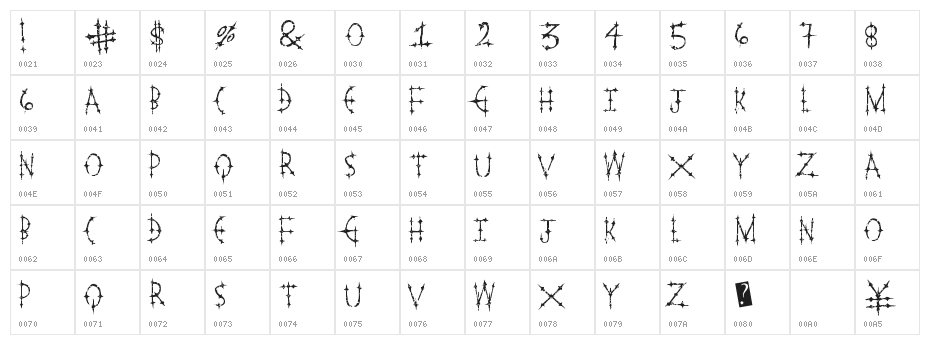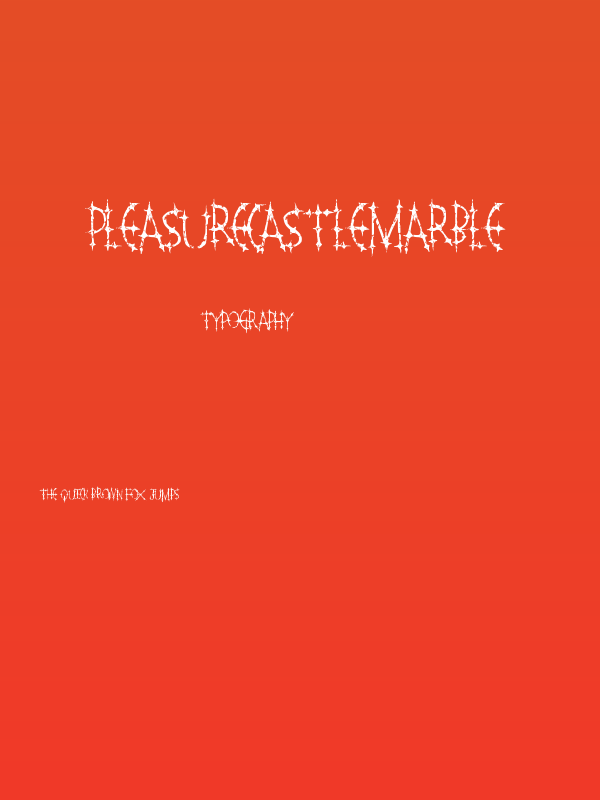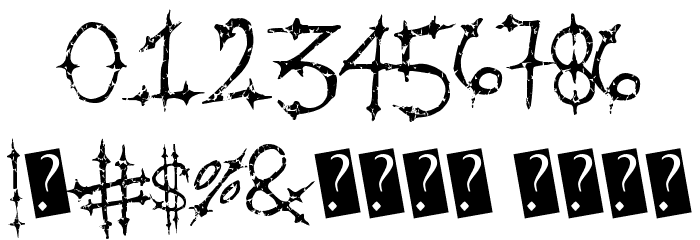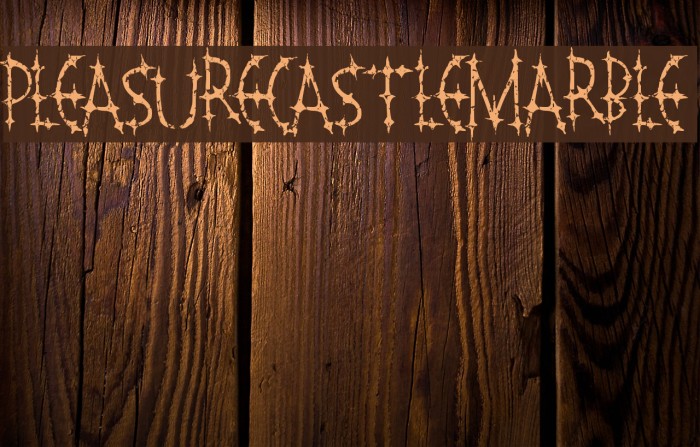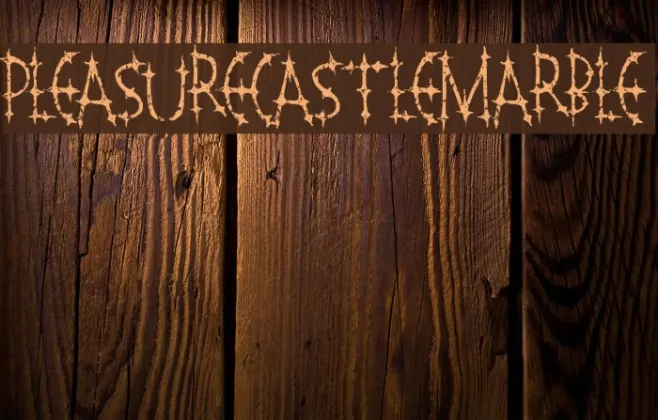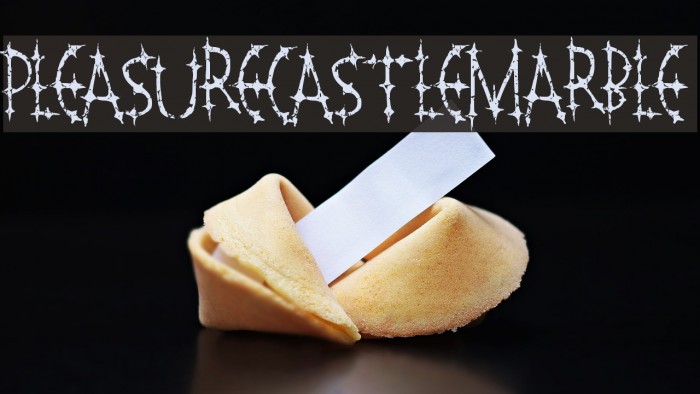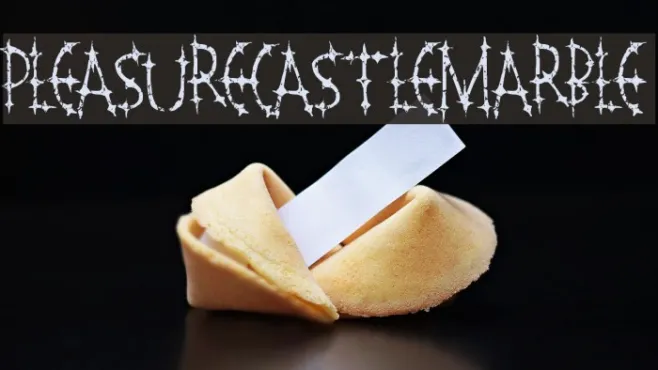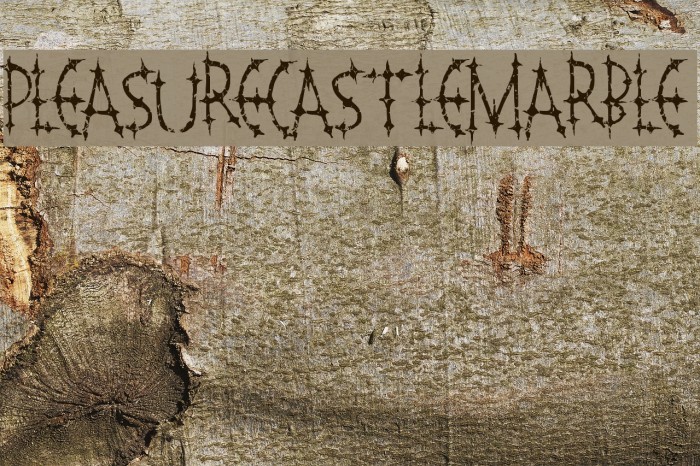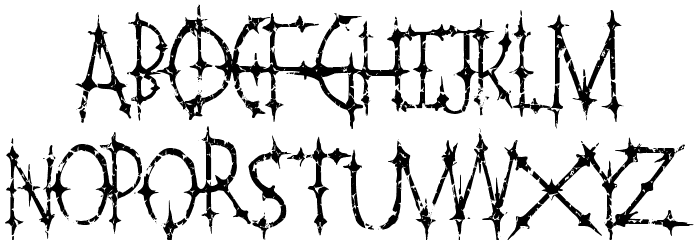
PleasureCastleMarble Font
PleasureCastleMarble Description
This font features a highly decorative and intricate design, reminiscent of barbed wire or thorny vines. Each character is adorned with sharp, pointed accents that give it a rugged and edgy appearance. The overall style is bold and striking, making it suitable for attention-grabbing designs. The uppercase and lowercase letters maintain a consistent theme, with the same thorny embellishments throughout. Numbers and special characters are equally detailed, ensuring a cohesive look across all text. The font's unique style makes it ideal for projects that require a dramatic and unconventional aesthetic.